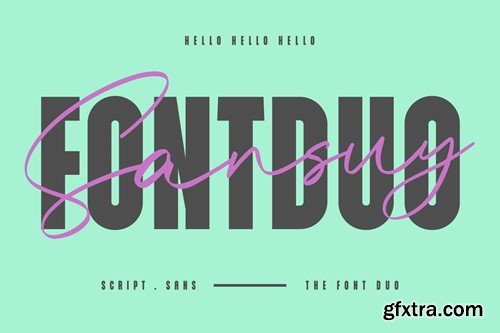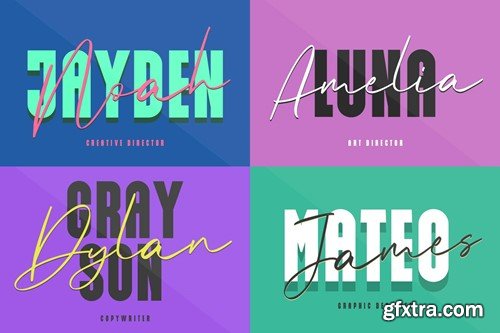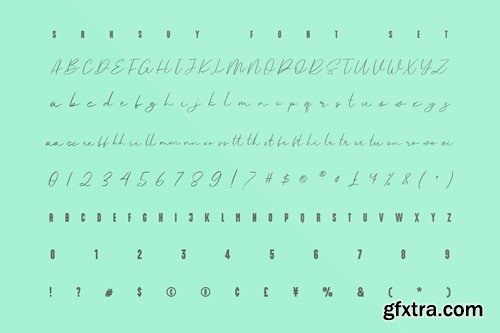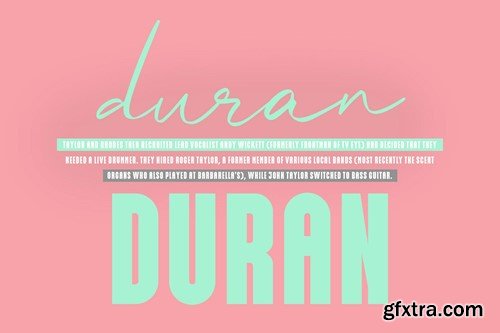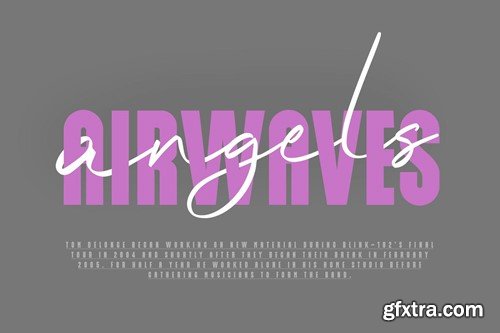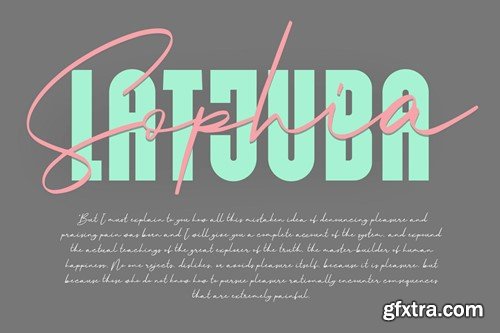
Sansuy Font Duo Script Sans Typeface 7XHJ7ZH
Sansuy Font Duo Script Sans Typeface
Give your designs an authentic brush handcrafted feel. “Sansuy Font Duo Script Sans Typeface” is perfectly suited to signature, stationery, logo, typography quotes, website header, branding and more.